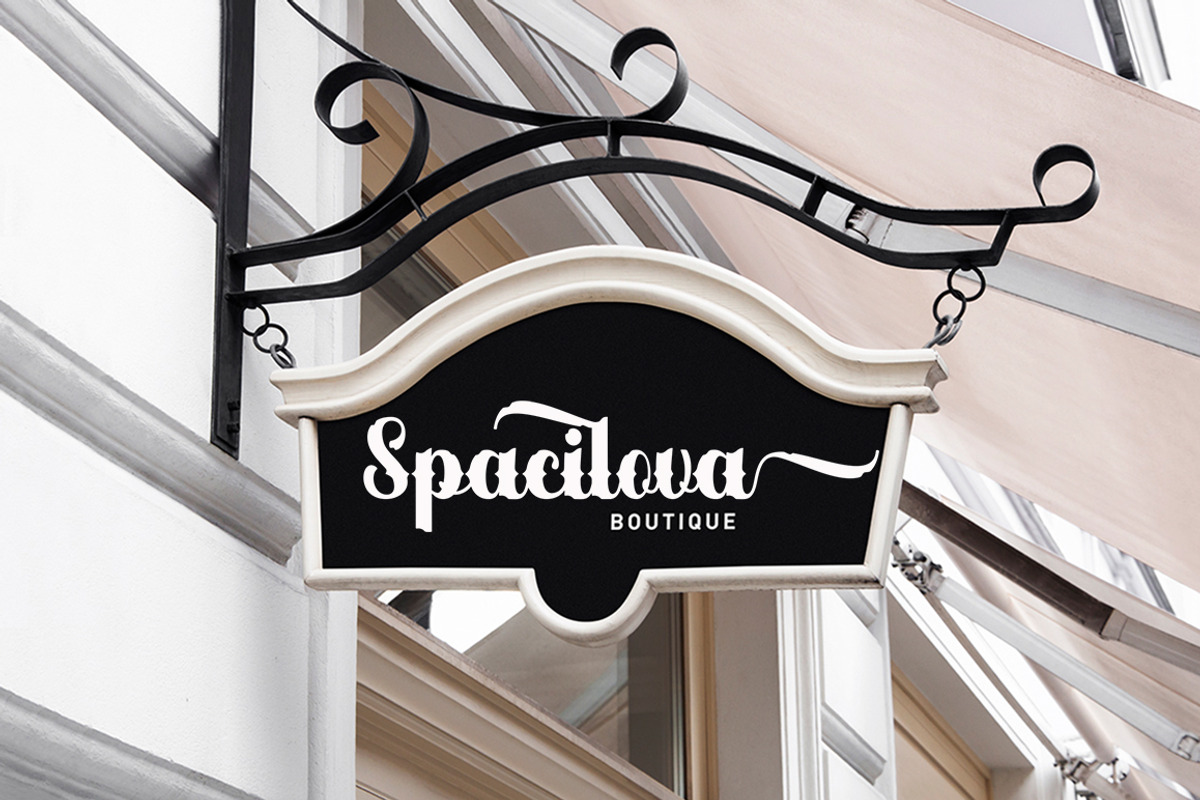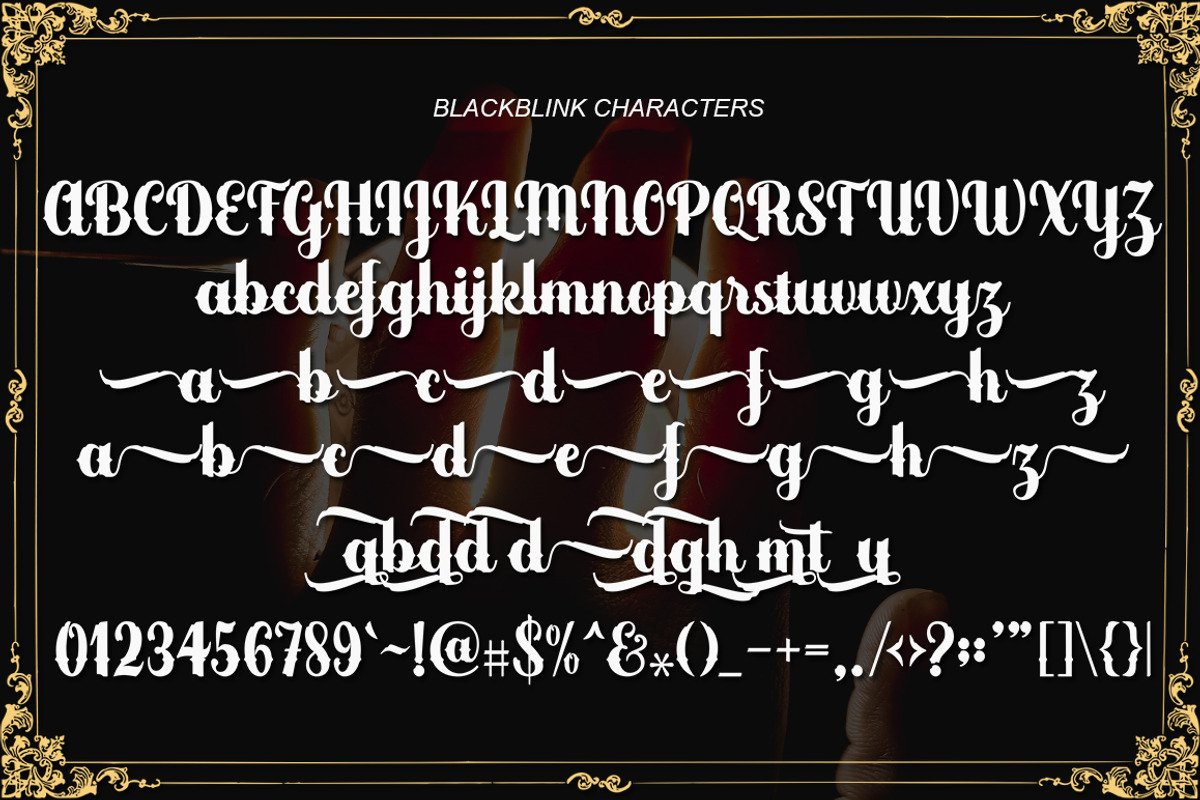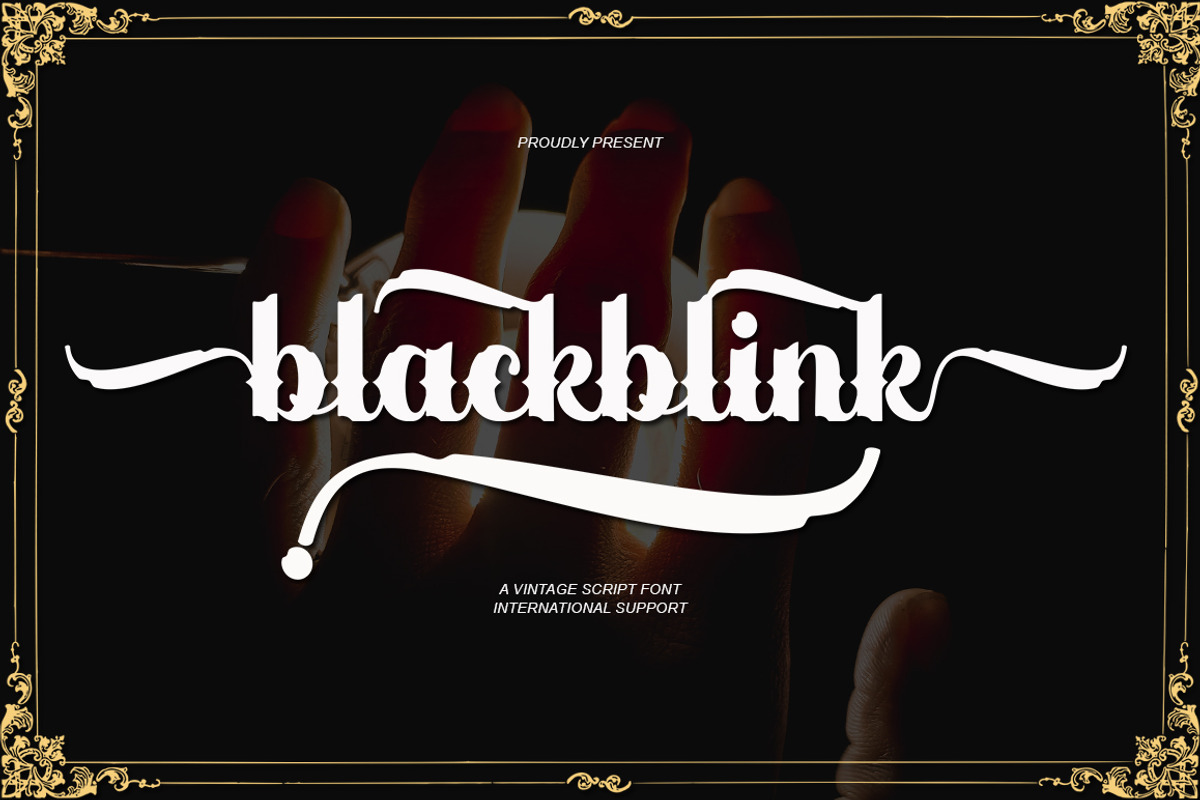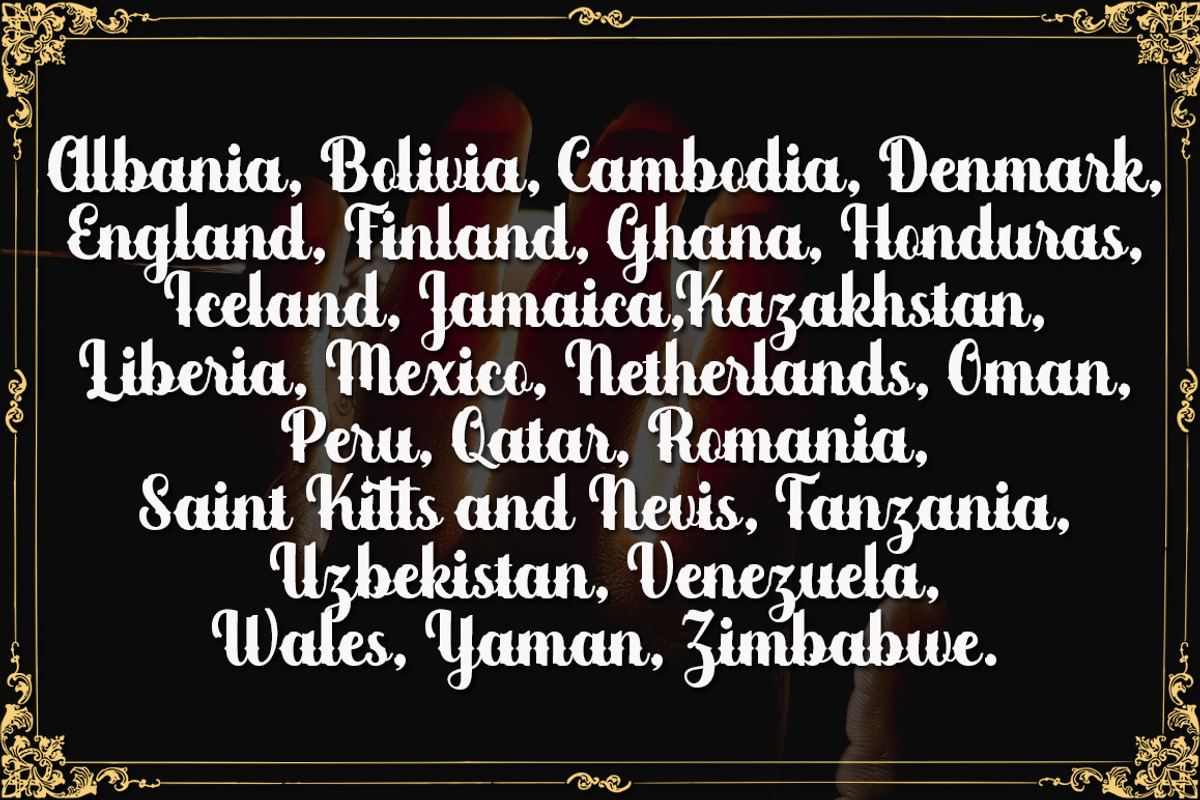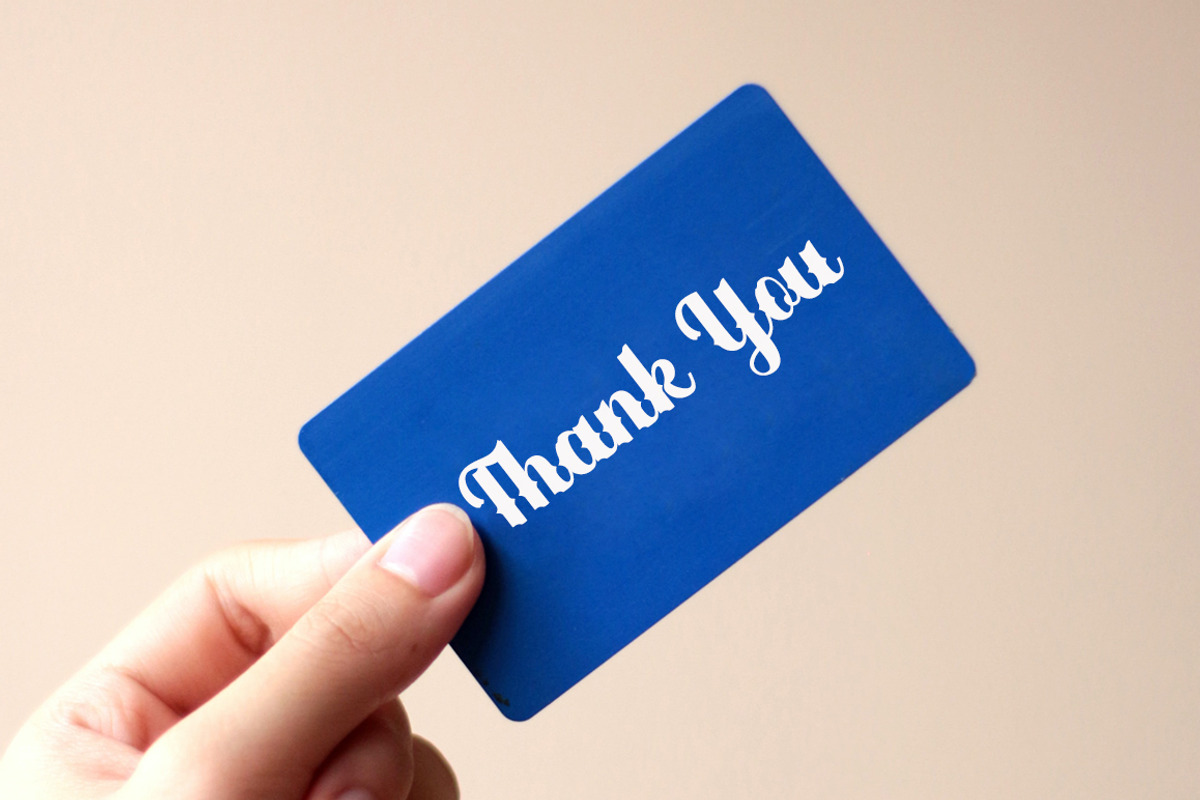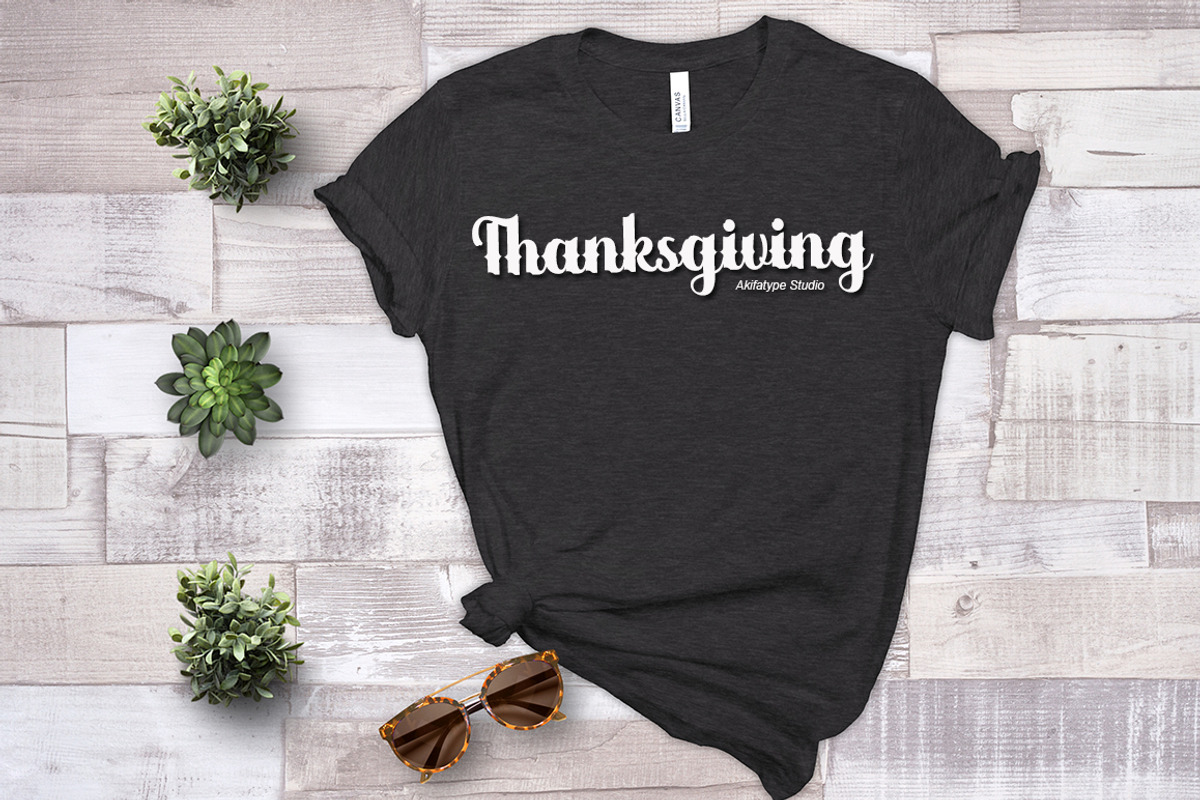
Blackblink
Blackblink is a beautiful vintage calligraphy typeface, I hope you will be interested in this font, if you want to use it for your work.
This font can be used easily and simply because there are many features in it. contains a complete set of uppercase and lowercase letters, a wide variety of punctuation marks, numbers, and multilingual support. fonts also contain a lot
ligatures and many others contain alternative Style Sets like the heart swash alternative.